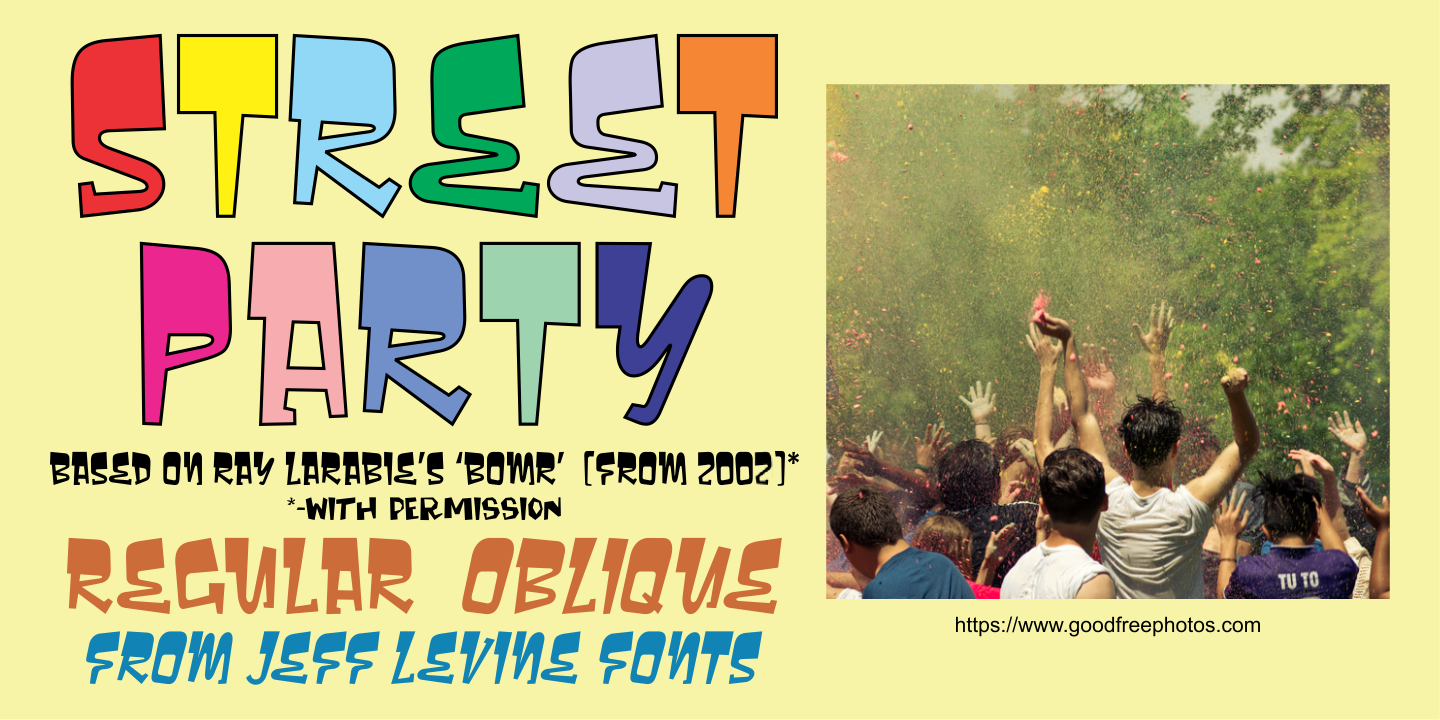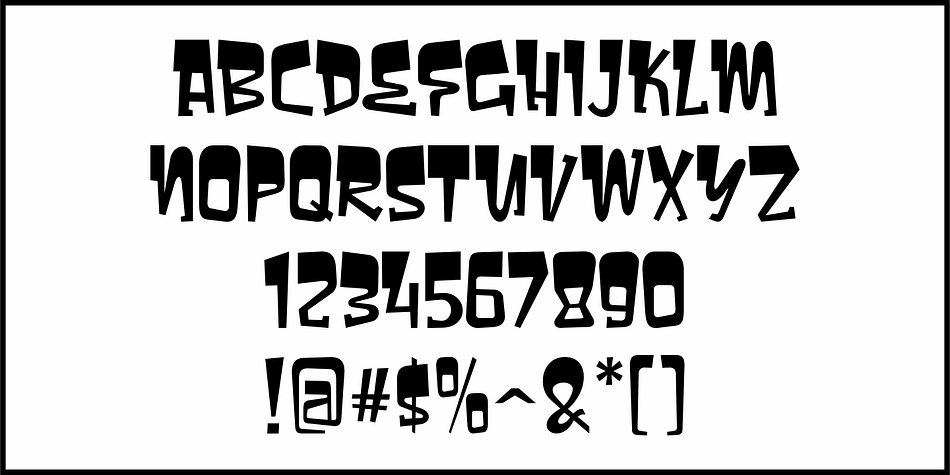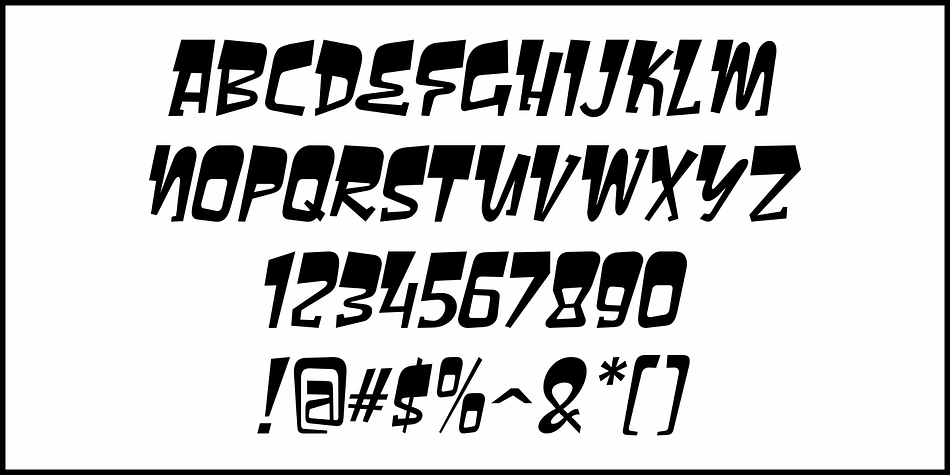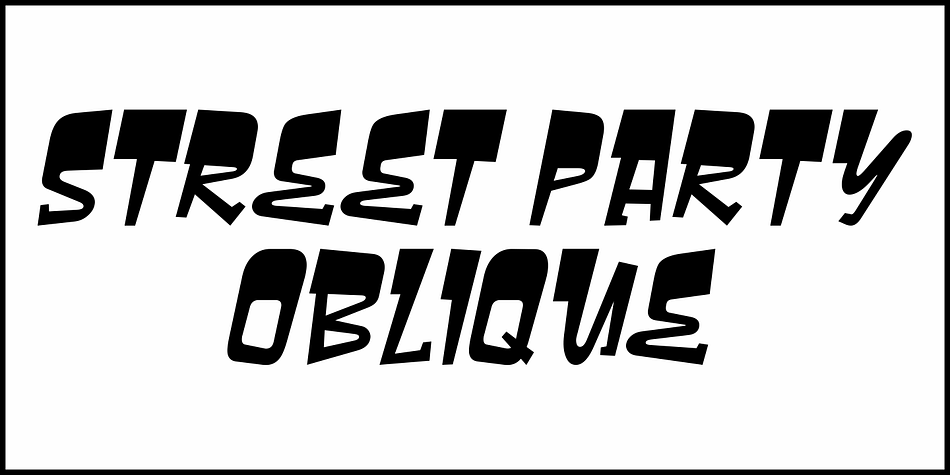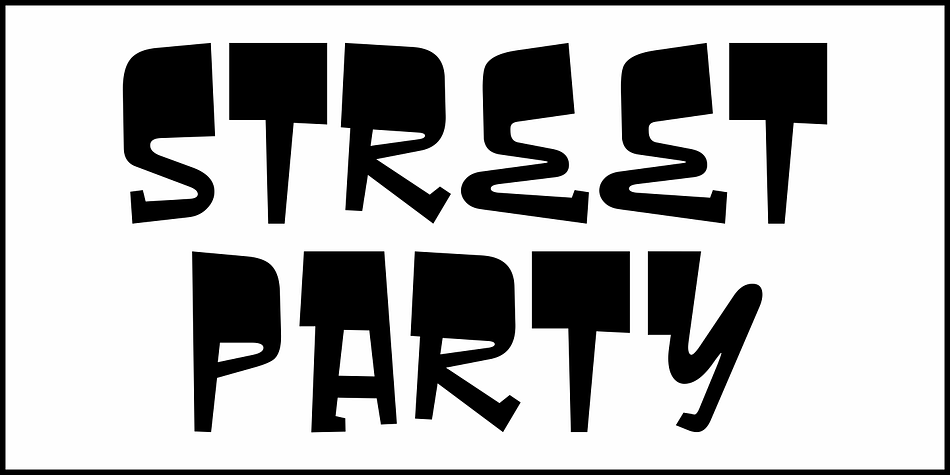
Street Party JNL
Designed by Jeff Levine, Street Party JNL is a display font family. This typeface has two styles and was published by Jeff Levine Fonts.
In 2002, a unique font from Ray Larabie called Bomr emerged, inspired by the dynamic energy of graffiti art. While it presented an innovative approach, it awaited its full potential to be unlocked. Fast forward to 2022, when a treasure trove of creative font ‘seeds’ (including Bomr) was generously released into the public domain, inviting a new era of artistic reinvention.
Embracing this spirit of transformation, Jeff Levine Fonts decided to refine and rejuvenate Bomr. The original design was enhanced to boast rounded corners as a softer, more functional typeface. The characters underwent a unification in height and appearance, with some being completely redrawn to ensure a cohesive look.
This fresh interpretation of Bomr is a testament to the collaborative and ever-evolving world of type design.
Now known as Street Party JNL, this free-form, playful and adventurous font is now available in both regular and oblique versions.